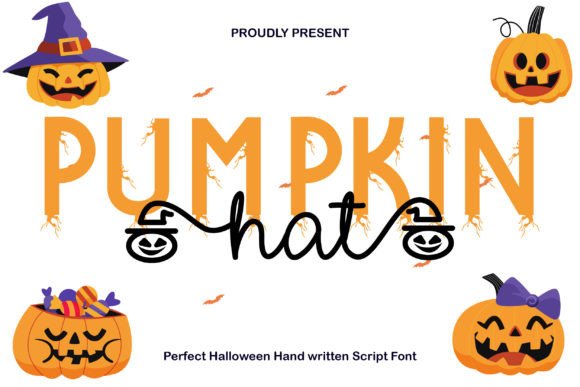
Dive into the world of Pumpkin Hat Font, a captivating duo that offers an enthralling harmony of style and imagination. This exquisite font family is meticulously crafted to make your words dance with vibrancy, transforming ordinary designs into visually stunning masterpieces.
Flourishing with an array of stylistic monoline scripts and bold display fonts, Pumpkin Hat Font beckons you to embark on a Halloween adventure like no other. Its playful charm is designed to capture the essence of this spooky season, making it the perfect instrument to conjure up festive invitations, spellbinding posters, and spine-chilling books that evoke the spirit of Halloween.
Adorned with bewitching curves and mischievous strokes, Pumpkin Hat Font casts a spellbinding allure that captivates the eye. The script font, with its flowing lines and bewitching loops, invites you to create enchanting messages that leap off the page and dance playfully in the air. While the display font, with its bold presence and enchanting shapes, commands attention, ensuring that your designs stand out in the digital realm like a glowing jack-o'-lantern on a dark autumn night.
With every curve and stroke, Pumpkin Hat Font weaves a tale of enchantment, stirring the imagination and leaving readers spellbound. Its versatility grants you the power to conjure an array of spellbinding creations, from captivating logos that cast a lasting impression to hauntingly beautiful social media graphics that send shivers down the spine.
Don't let the ordinary confine your designs; let Pumpkin Hat Font ignite your creativity and weave magic into your digital tapestry. Immerse yourself in the wonder of this font duo and experience the pure delight of creating designs that enchant and enthrall, leaving your audience utterly captivated.